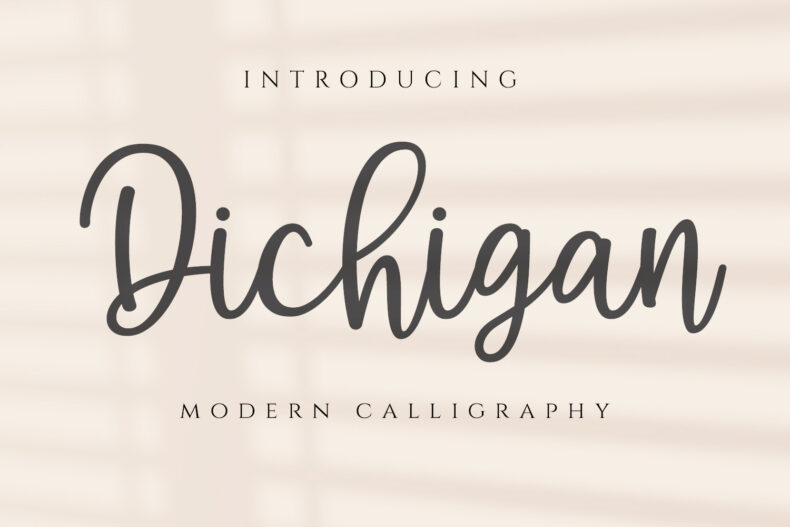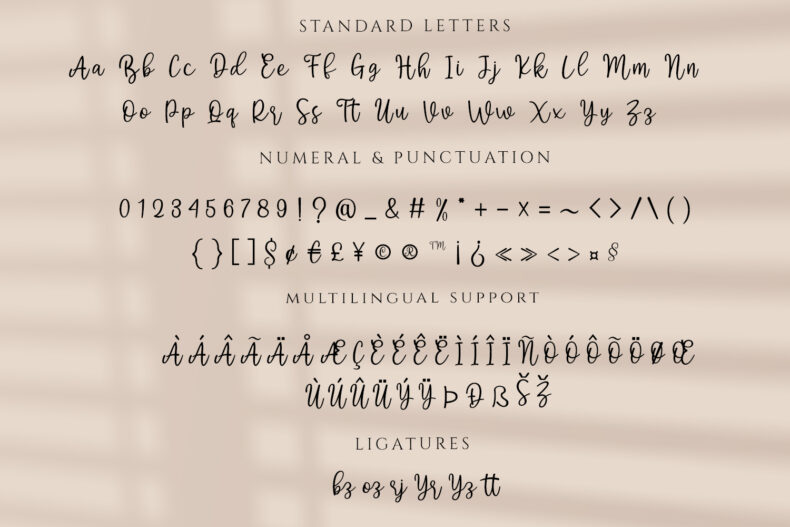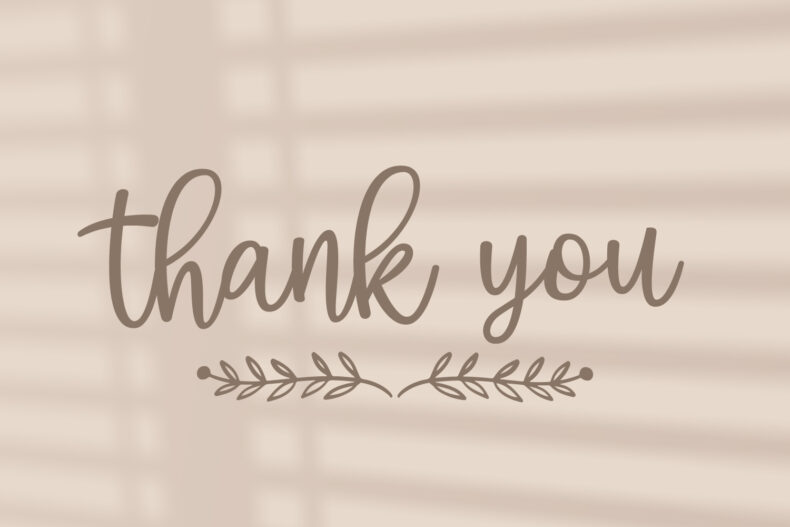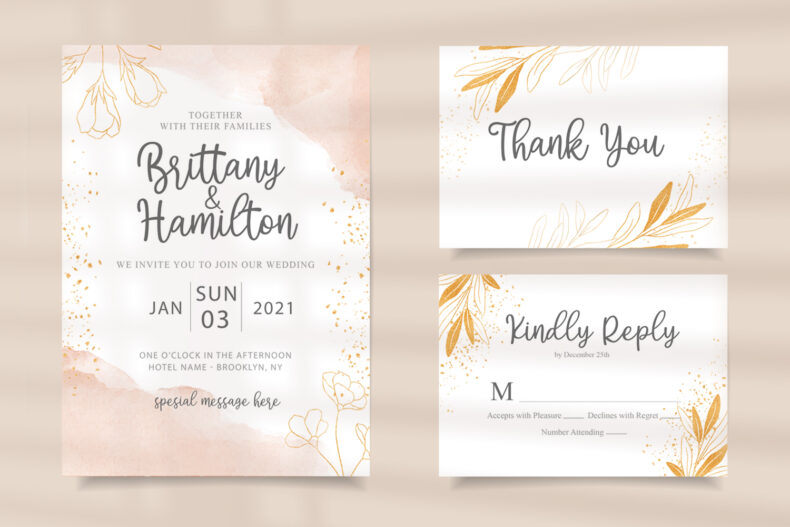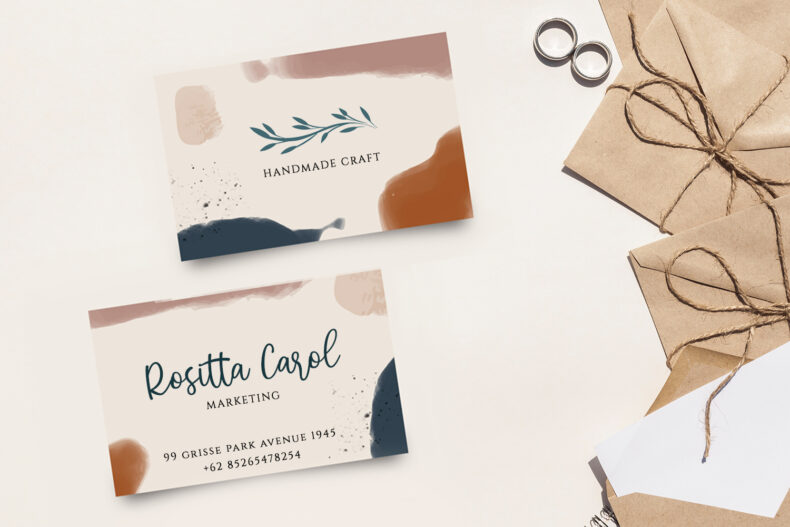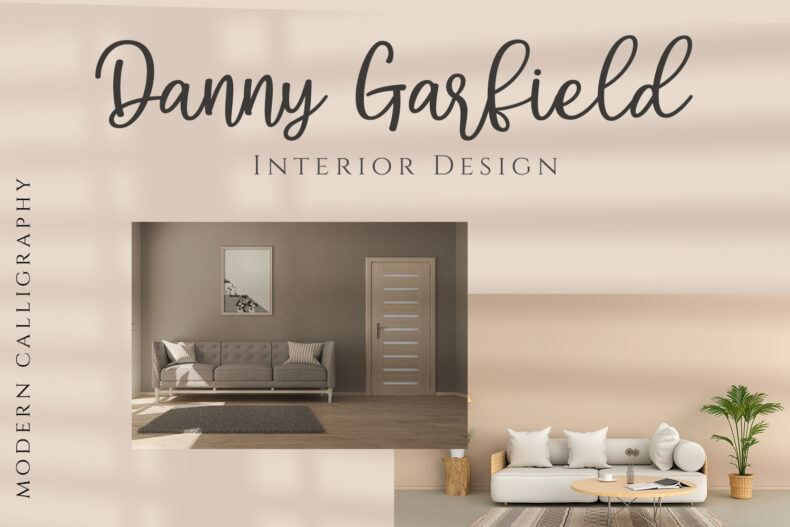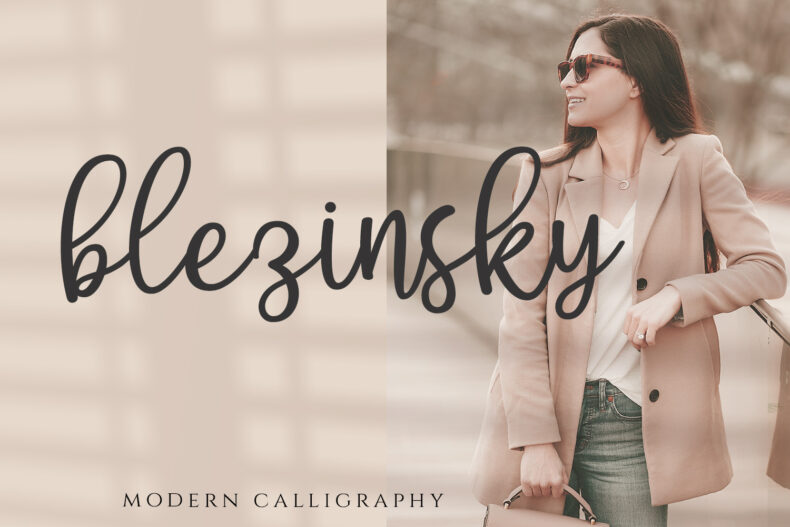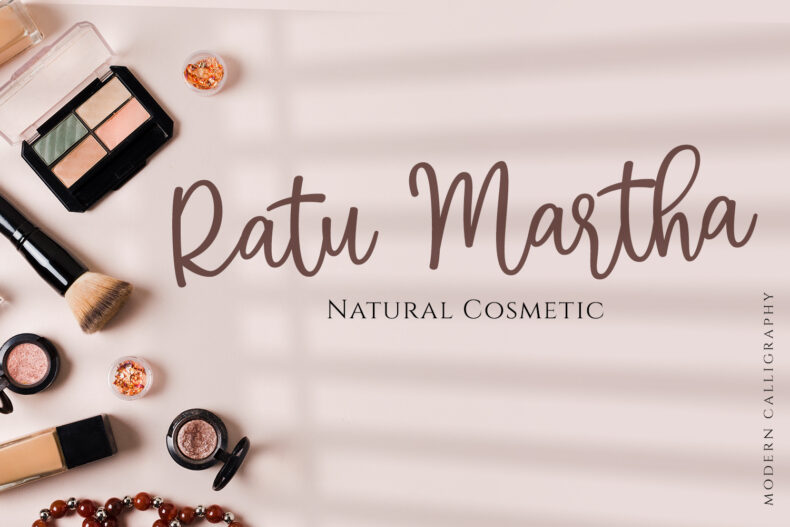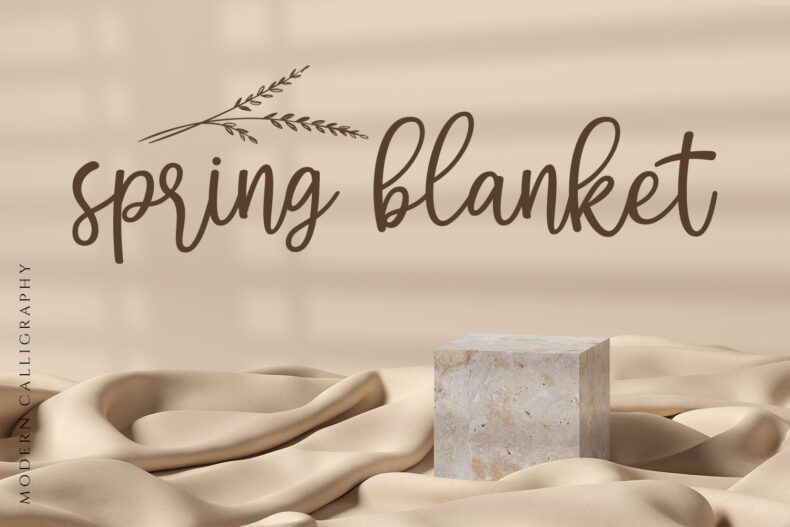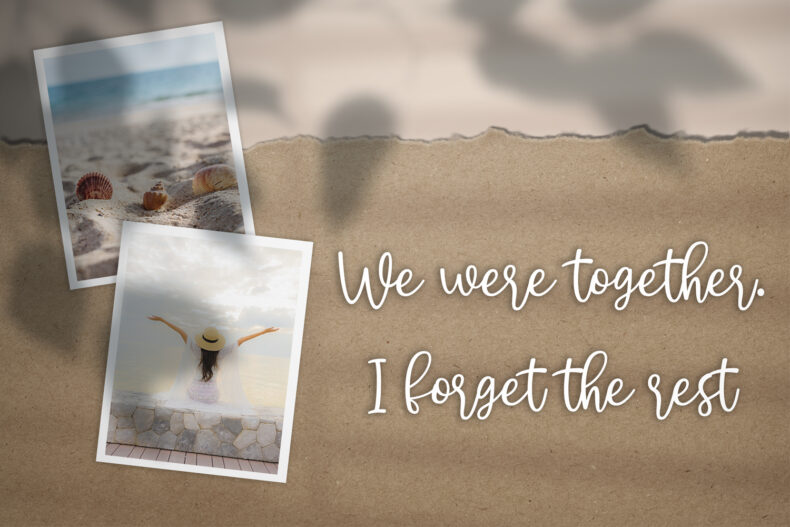
Dichigan is a modern calligraphy font for sweet, decorative lettering. Explore it in wedding designs, food-brand concepts, boutique identities, and short editorial headings.
Dichigan brings a calligraphic voice to projects that need a softer tone. A couple's names, a bakery brand, or a short boutique message can become the focal point while the rest of the layout stays restrained.
Try the font with the words you actually need rather than judging it from the name alone. Keep longer information in a simpler companion typeface so the calligraphy has room to do its job.